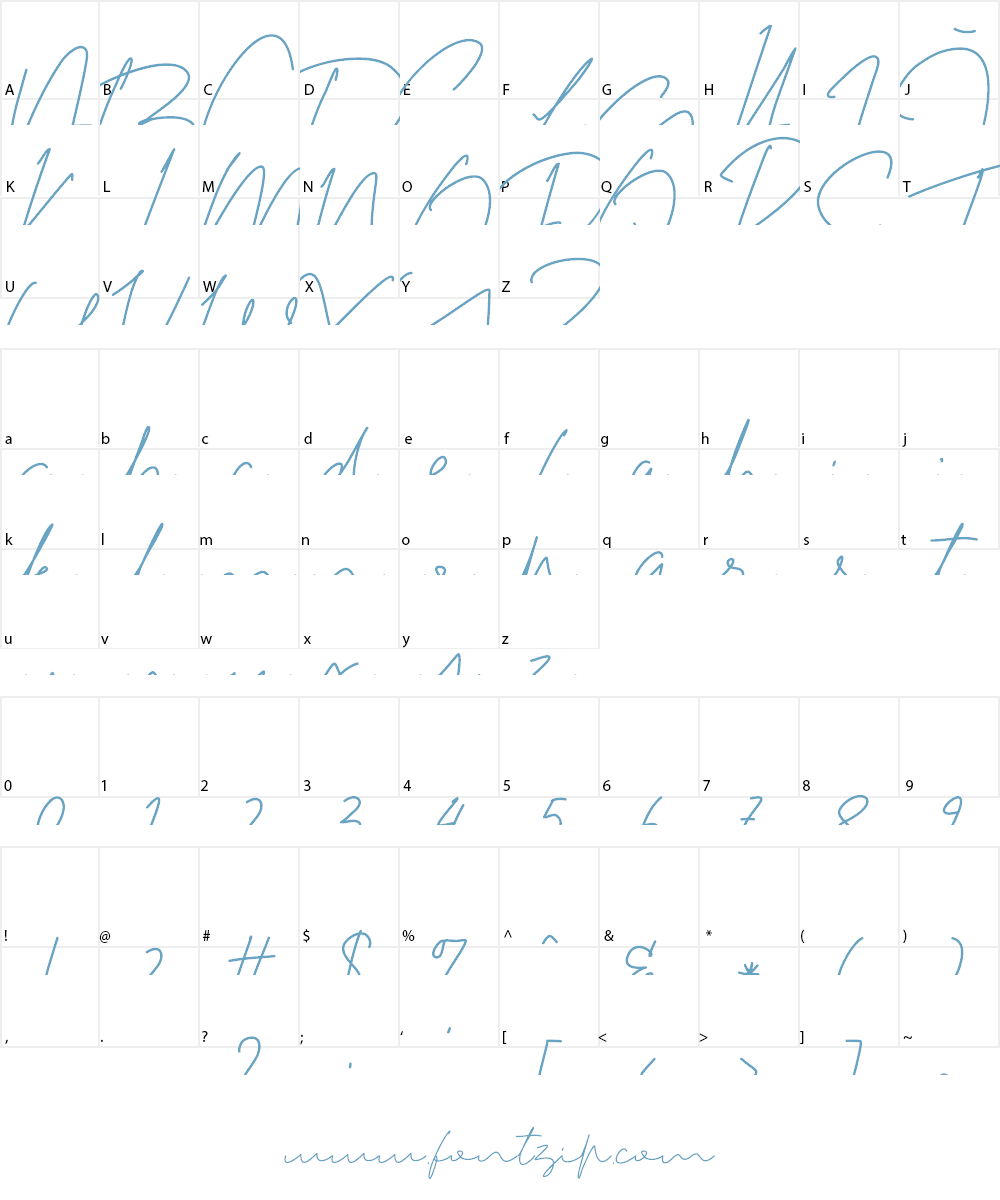
"Tiffany" is a font with natural representation as a handwritten construction, featuring a straightforward, simple, elegant and very beautiful character.